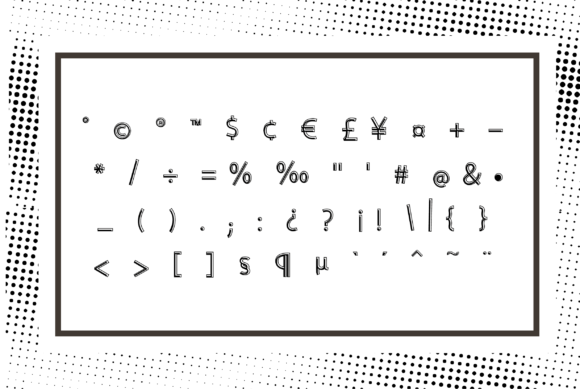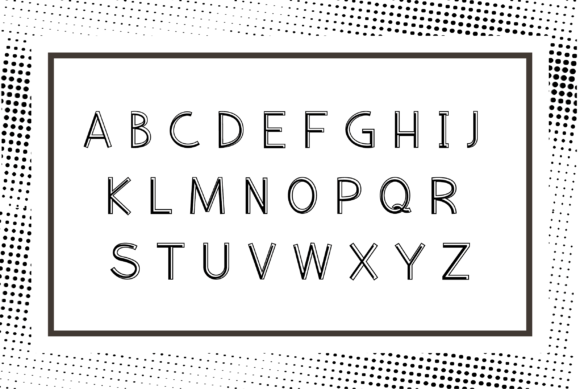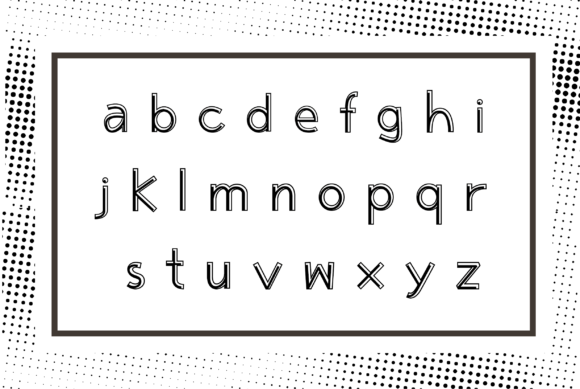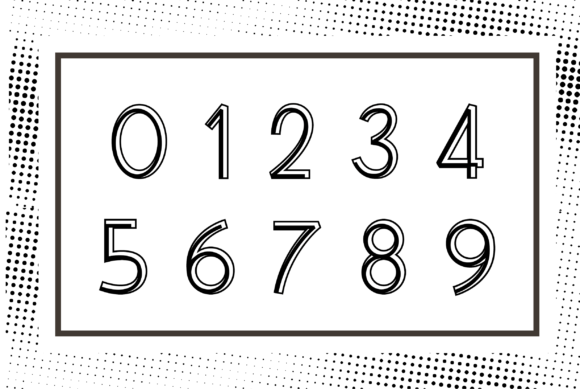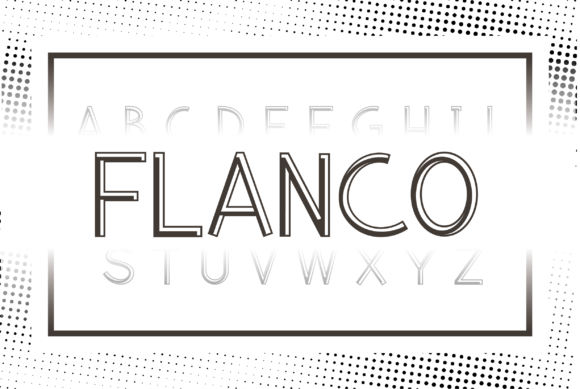
Discover the Versatility of Flanco Font: Elevate Your Designs with Confidence
Are you on the hunt for a display font that makes a statement? Look no further than Flanco Font! This fantastic typeface is designed to turn heads, boasting a unique style that effortlessly stands out in any context. Whether you’re working on a busy background or aiming for a striking headline, Flanco Font is the perfect choice. In this article, we’ll dive into the world of Flanco Font, exploring its features, benefits, and the endless creative possibilities it offers to designers and crafters alike.
What Makes Flanco Font So Special?
Flanco Font is more than just a display font; it’s a design powerhouse. Its distinctive style is crafted to capture attention and leave a lasting impression. The font’s versatility is one of its most significant advantages, allowing it to shine in various applications. Here are a few reasons why Flanco Font stands out:
- Unique Style: Flanco Font features a design that’s both modern and eye-catching. Its unique letterforms are carefully crafted to ensure your text doesn’t go unnoticed.
- High Versatility: Whether you’re designing a poster, a website header, or a social media graphic, Flanco Font adapts seamlessly to different contexts.
- Legibility: Despite its decorative nature, Flanco Font maintains excellent legibility, ensuring your message is conveyed clearly and effectively.
Using Flanco Font on Busy Backgrounds
One of the challenges designers often face is making their text stand out on busy backgrounds. Busy backgrounds, with their intricate patterns and vibrant colors, can sometimes overwhelm the text, making it hard to read. This is where Flanco Font truly shines. Its bold and unique design ensures that your message remains clear and visible, even on the most complex backgrounds.
Here are some tips for using Flanco Font on busy backgrounds:
- Contrast is Key: Ensure there’s sufficient contrast between the text and the background. Flanco Font’s bold design helps, but contrast will make your text pop.
- Experiment with Colors: Don’t be afraid to play with different text colors. Sometimes, a subtle change can make a significant difference.
- Consider a Text Shadow: Adding a subtle shadow to your text can enhance readability on particularly busy or bright backgrounds.
Flanco Font as a Standalone Headline
Flanco Font isn’t just limited to busy backgrounds; it also makes a stunning standalone headline. Its unique design and bold presence ensure that your headline grabs attention and draws readers in. When using Flanco Font as a headline, consider the following:
- Keep it Simple: While Flanco Font stands out, a simple, uncluttered design around it can make it even more impactful.
- Play with Size: Don’t be afraid to go big. Flanco Font’s design looks stunning when scaled up, making a significant impact.
- Color Choice: Select a color that aligns with your brand or design theme. Flanco Font’s versatility means it works well in various color schemes.
Who Can Benefit from Flanco Font?
Flanco Font is a valuable addition to any designer’s toolkit, offering benefits for a wide range of projects and applications. Here are some of the professionals who can gain the most from this fantastic display font:
- Graphic Designers: Whether you’re working on a logo, a brochure, or an advertisement, Flanco Font can add that extra wow factor.
- Web Designers: Use Flanco Font to create stunning website headers or engaging call-to-action buttons.
- Crafters and Makers: If you’re creating DIY projects, signage, or promotional materials, Flanco Font can help your text stand out.
- Marketing Professionals: Enhance your marketing materials with a font that captures attention and communicates your message effectively.
| Font Name | Flanco Font |
| Author | Danilo Miguel |
Flanco Font is a game-changer for designers and crafters looking to elevate their projects with a bold, eye-catching display font. Its unique style, versatility, and legibility make it an excellent choice for a wide range of applications, from busy backgrounds to standalone headlines. With Flanco Font in your toolkit, you’re equipped to create stunning designs that capture attention and leave a lasting impression.